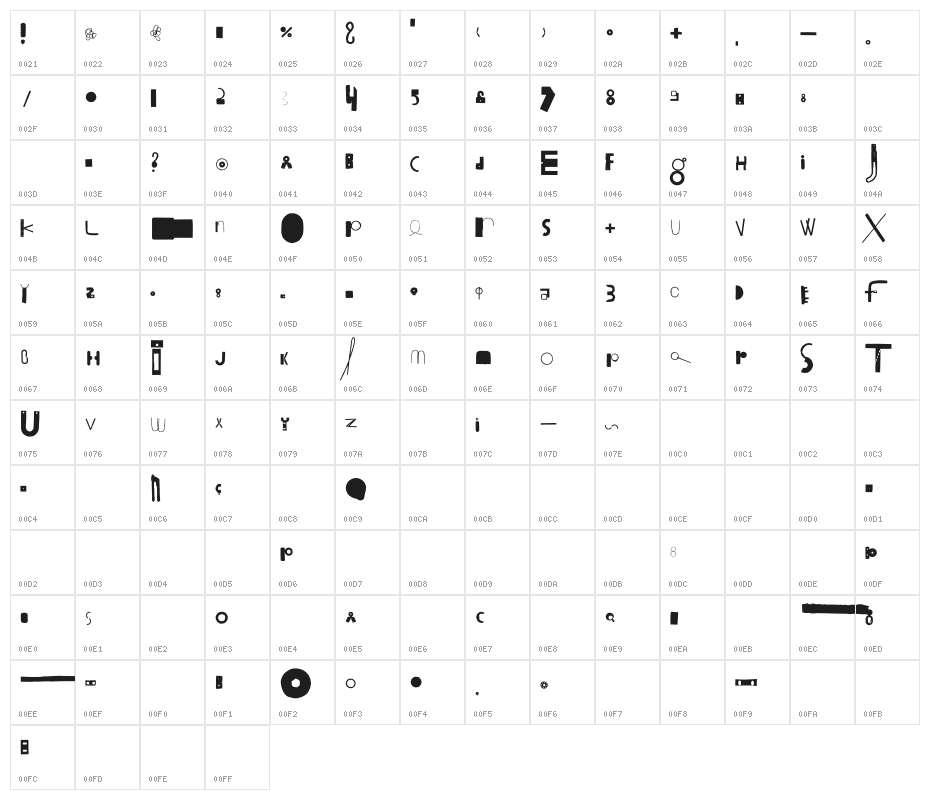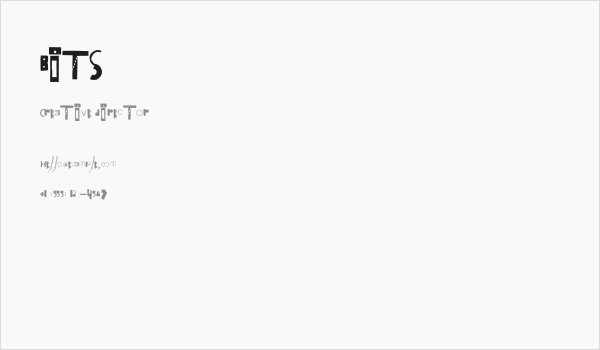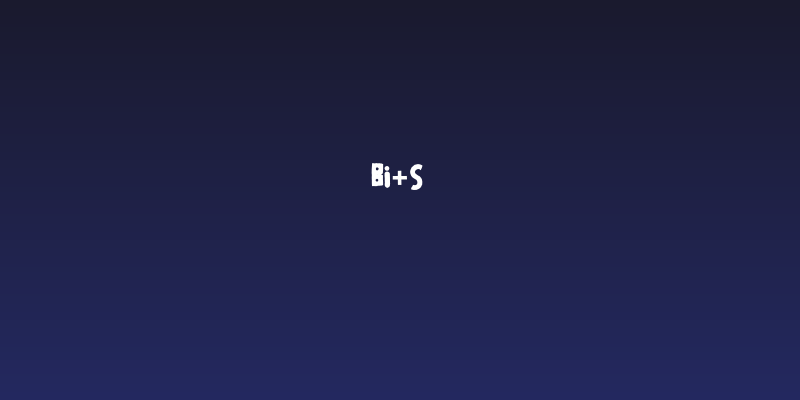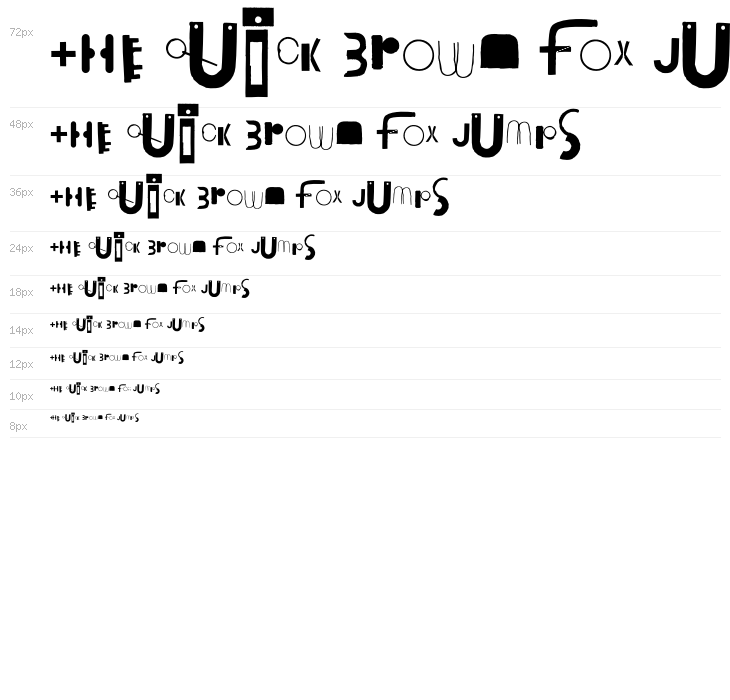
Bits Font
Bits Description
This font is a playful and eclectic mix of various styles, creating a unique and eye-catching appearance. Each character seems to be crafted with a distinct personality, featuring a combination of bold, thin, and irregular shapes. The uppercase letters are particularly varied, with some characters being blocky and others more slender and elongated. The lowercase letters continue this theme of diversity, with quirky and unexpected forms. Numbers and special characters are equally distinctive, adding to the font's overall whimsical and artistic feel. This font is perfect for projects that require a touch of creativity and individuality.
| Overall Style | Whimsical |
| Use Case | Logos, Posters, Creative Branding |
| Proposed Projects | Ideal for artistic projects, creative branding, posters, and unique invitations. |